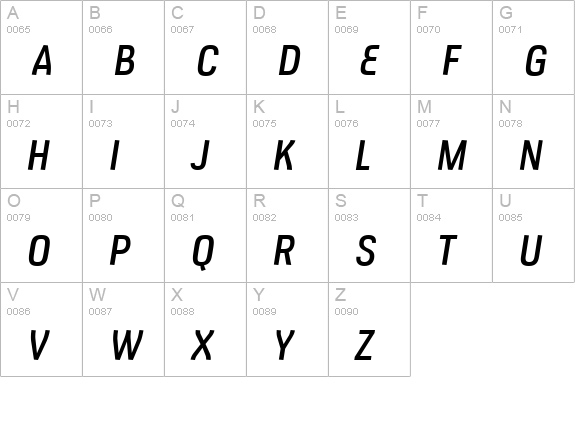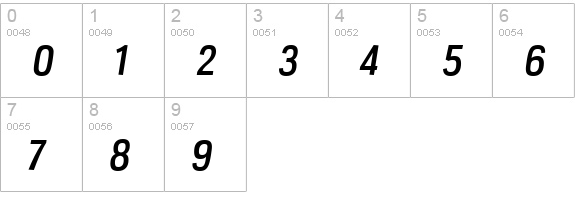
Veriox Rg Italic is a distinctive, italic variant in the Veriox typeface family \xE2\x80\x94 well suited to design and typography projects.
Veriox Rg Italic font is a sleek and modern typeface that exudes elegance and sophistication. Its distinctive italic styling adds a touch of flair to any design project, making it perfect for use in headings, quotes, and branding materials. The flowing curves and sharp angles of Veriox Rg Italic create a harmonious balance that draws the eye in and commands attention. What sets Veriox Rg Italic font apart is that it is available for free download at FontsMarket.com. This means that you can easily access this high-quality font without any cost, making it a valuable addition to your font collection. Whether you're a designer looking to elevate your projects or a business owner in need of a stylish font for your branding, Veriox Rg Italic is a versatile choice that will not disappoint. Download it today and see the difference it can make in your designs.